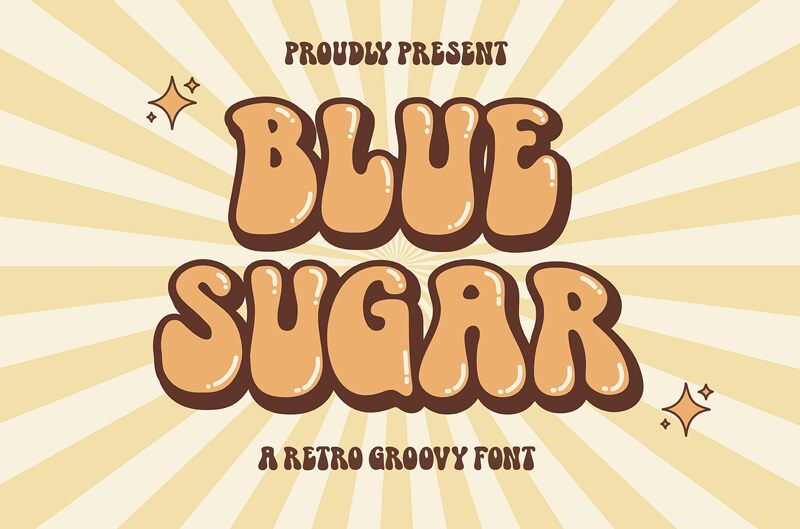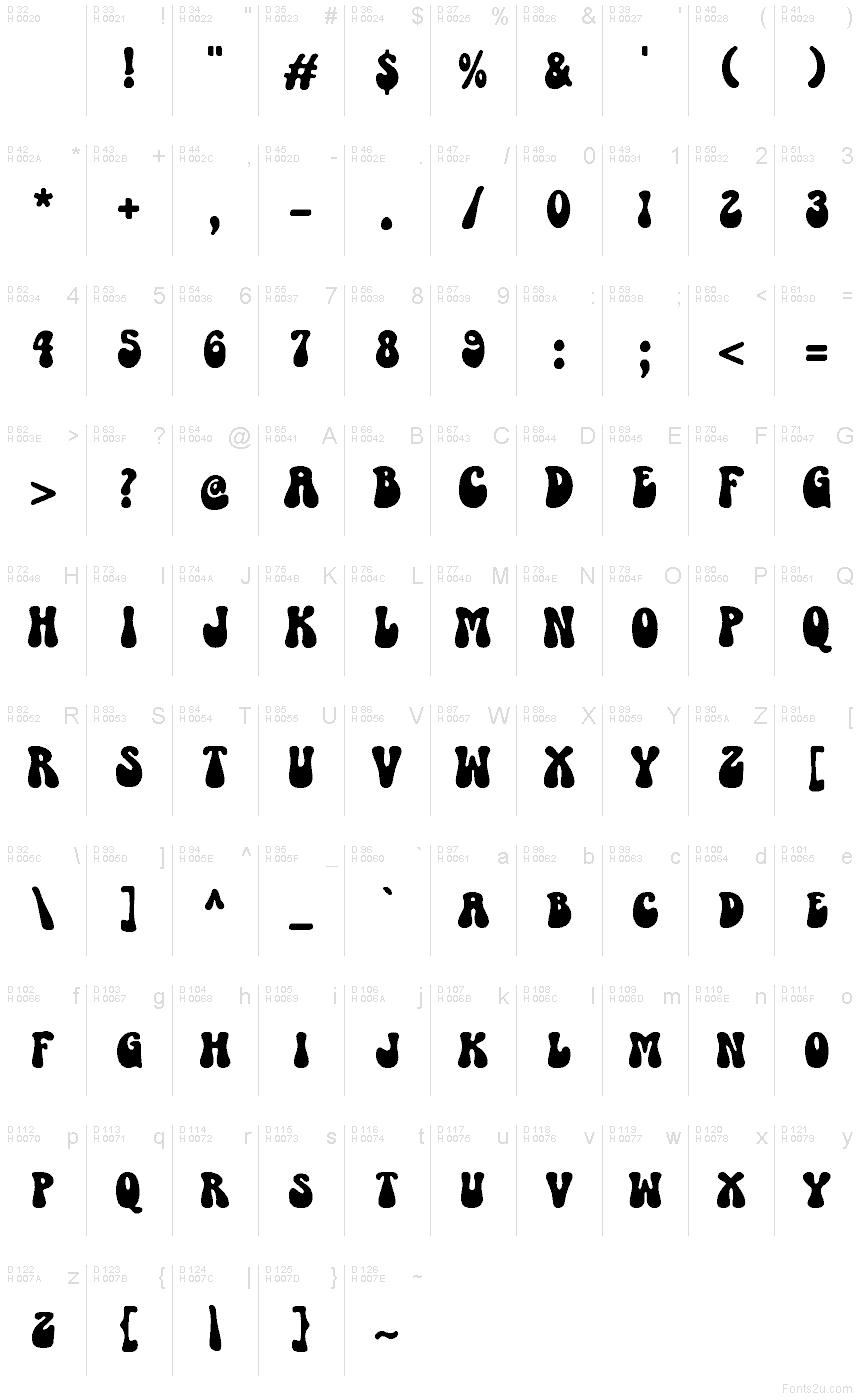
Blue Sugar Groovy
Blue Sugar Groovy font by Faras Dina is a free groovy display typeface in the Blue Sugar family. Its syrupy, bulbous curves and puddle-like counters give every word a wavy, hand-poured feel—thick, inky, and happily off-kilter. The letters pack together with a playful sway, creating a bold rhythm that reads loud without getting messy.
Using Blue Sugar Groovy, headlines feel like they’re dancing: think music festival posters, retro packaging, café menus, album covers, stickers, and bold social graphics. This free font shines at large sizes where its inky shapes can breathe; keep body copy minimal and pair with a crisp geometric sans for details. Give it a touch of extra spacing and watch the forms pop.